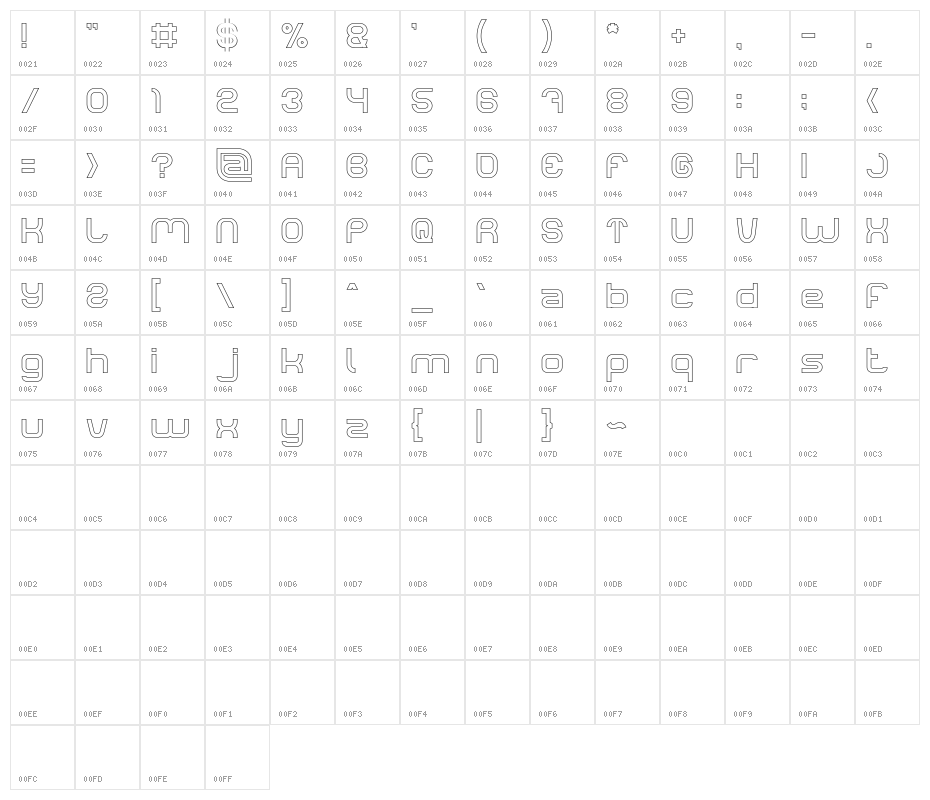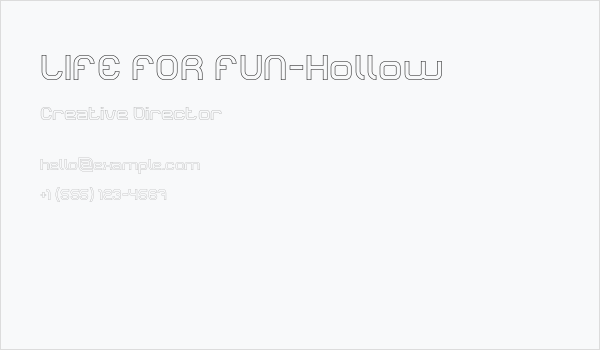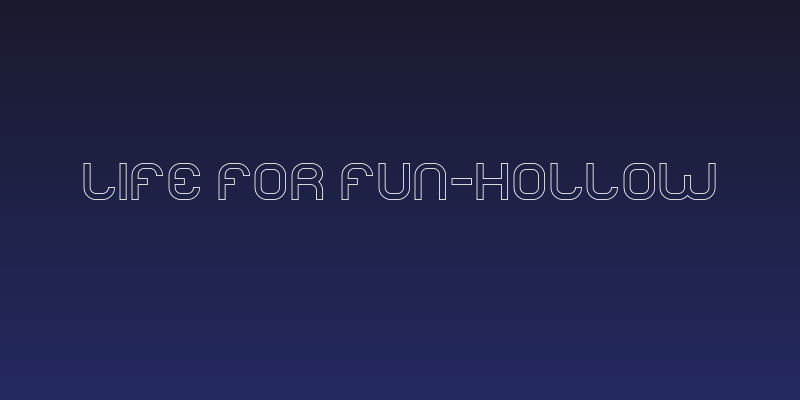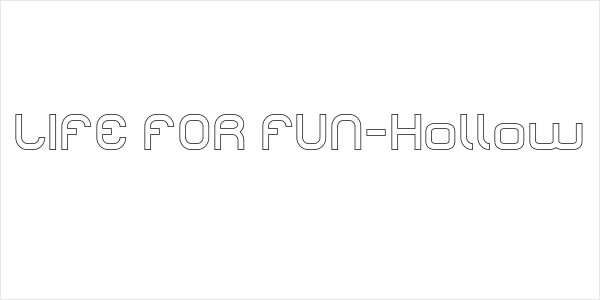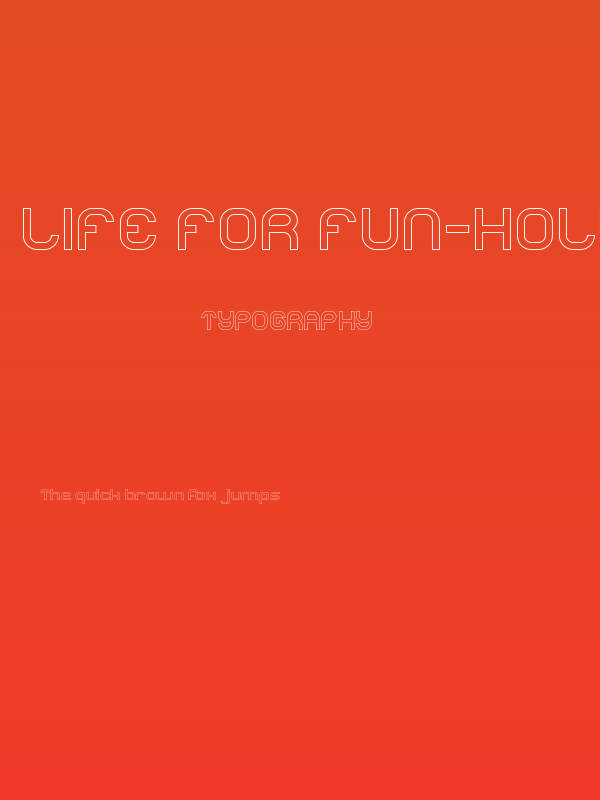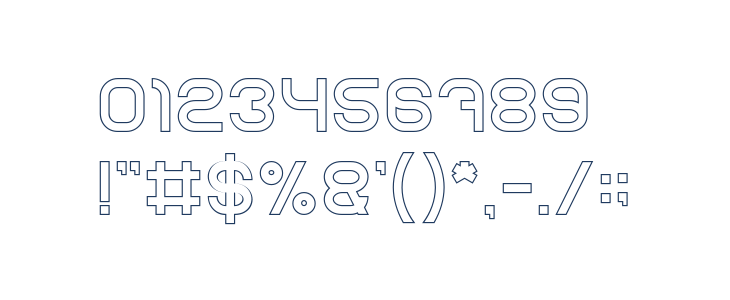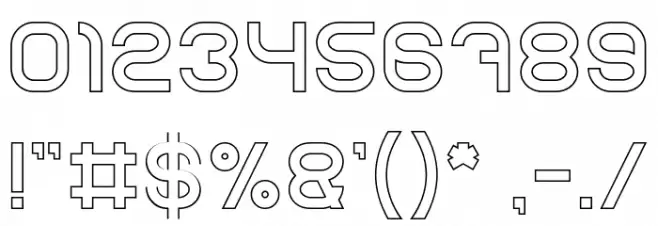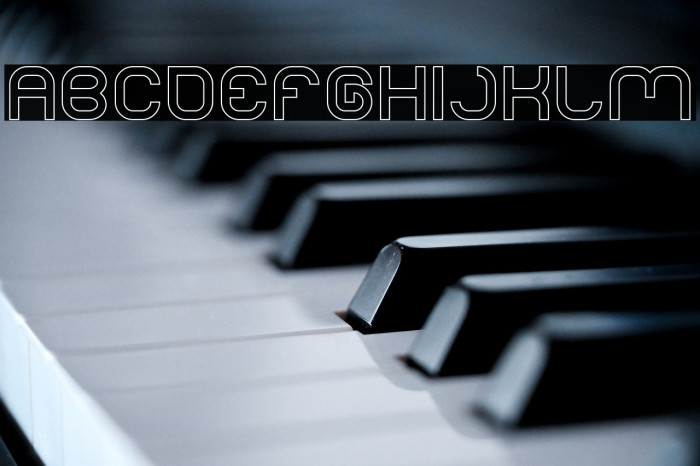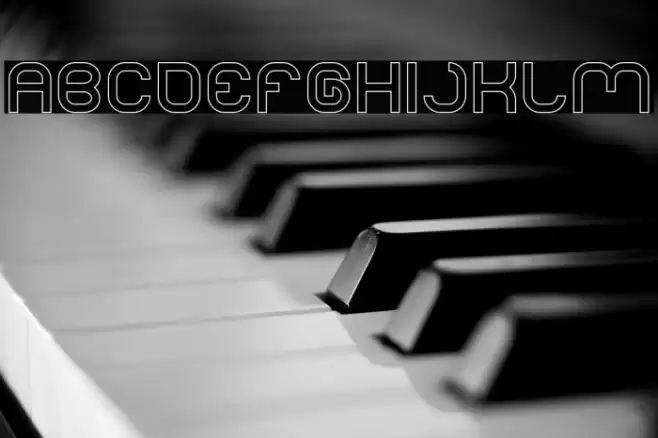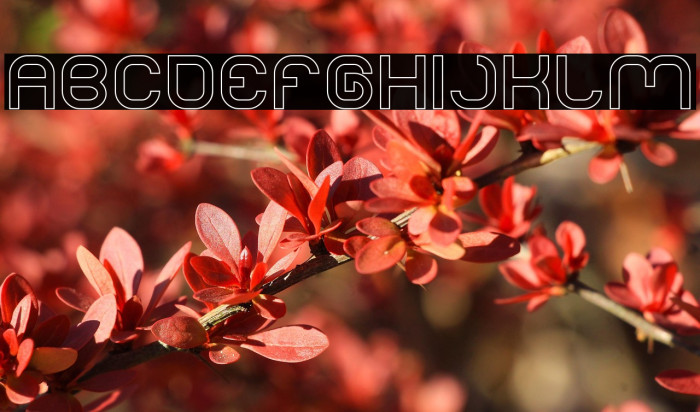
LIFE FOR FUN-Hollow Font
This font features a hollow, geometric design with clean, rounded edges. Each character is outlined, giving it a modern and airy feel. The uppercase and lowercase letters maintain consistent proportions, while the numerals and special characters complement the overall style. The font's open structure makes it ideal for projects that require a contemporary and playful touch. Its unique hollow design allows for creative layering and color play in digital and print media.
| Proposed Projects | Ideal for branding, posters, digital media, and creative projects that require a modern and playful aesthetic. |